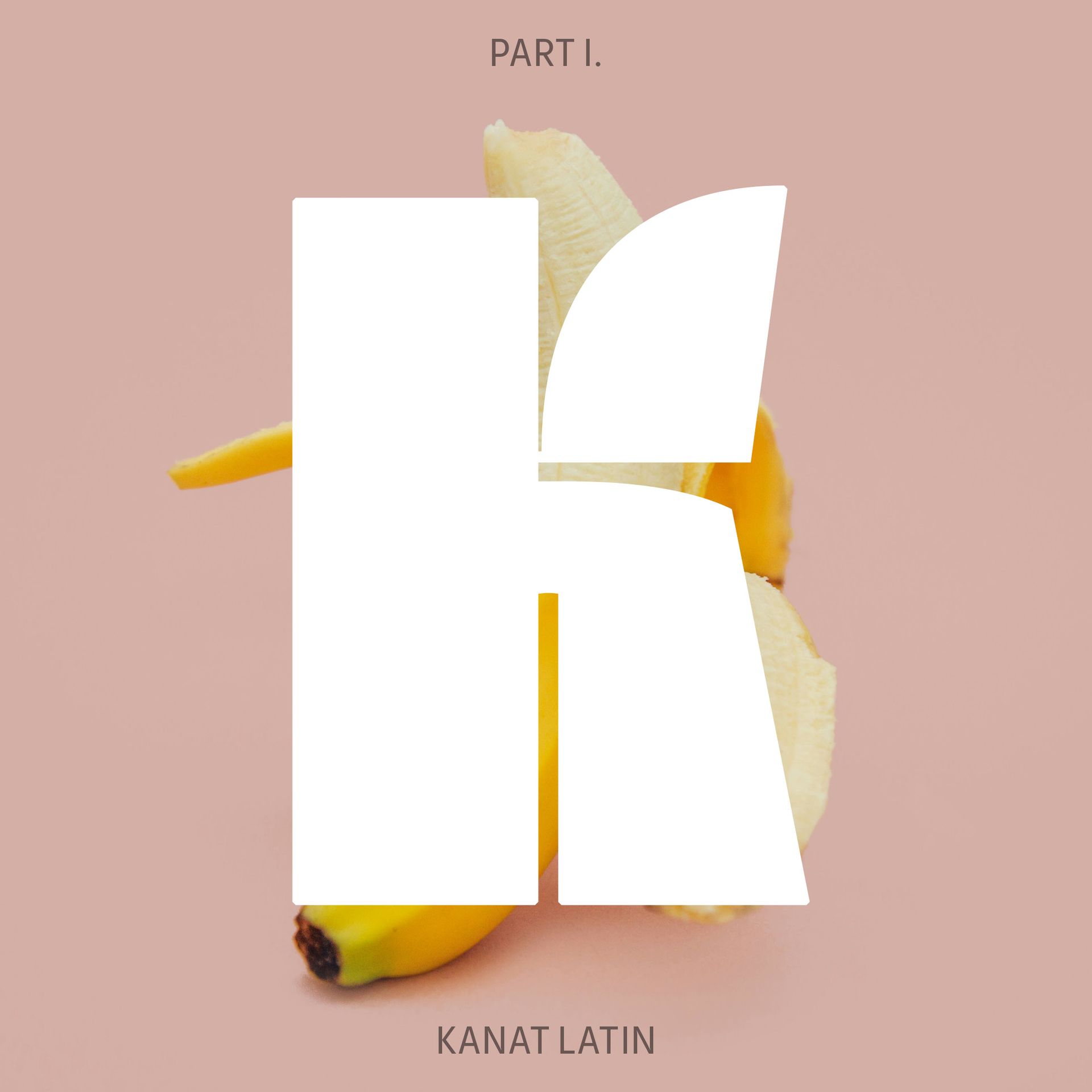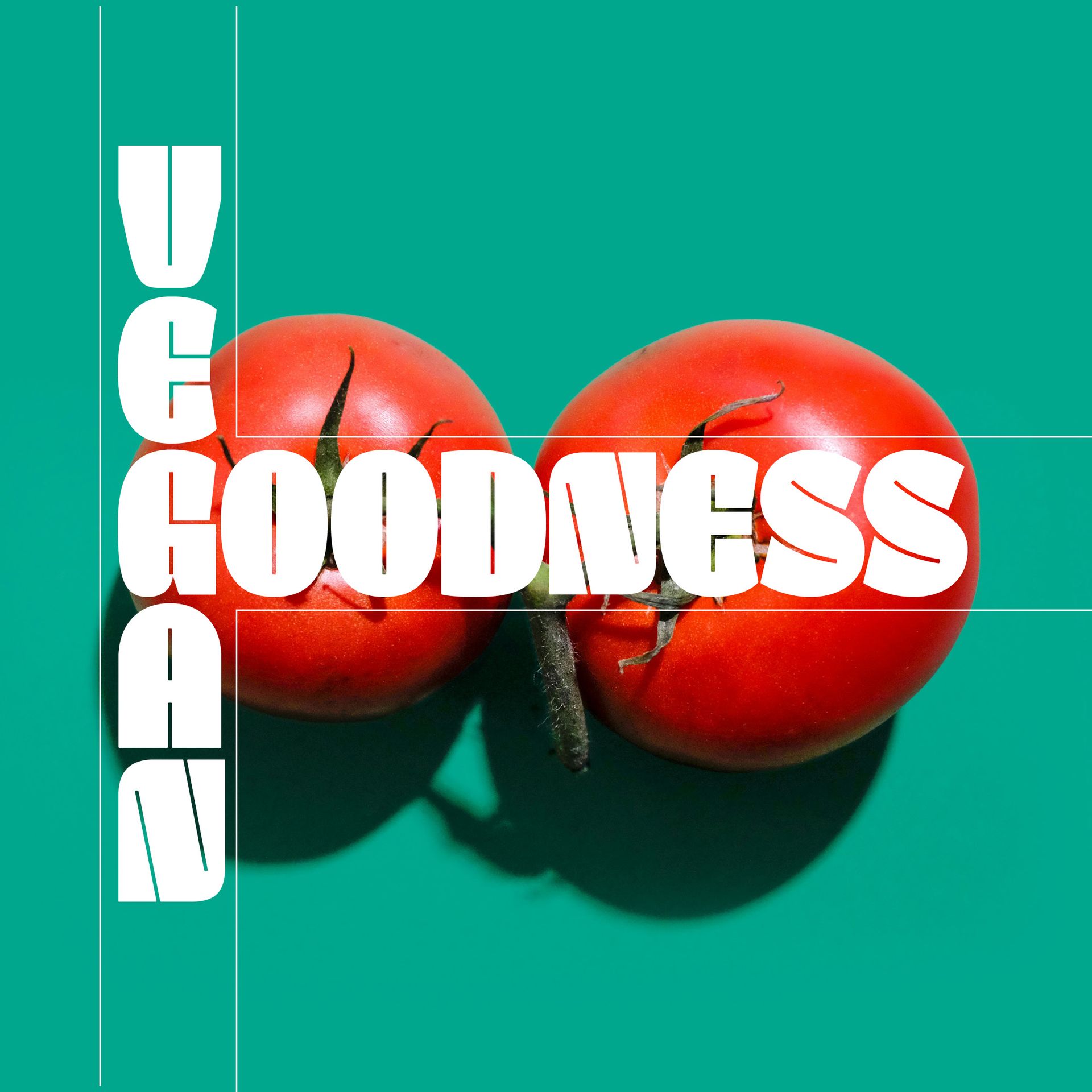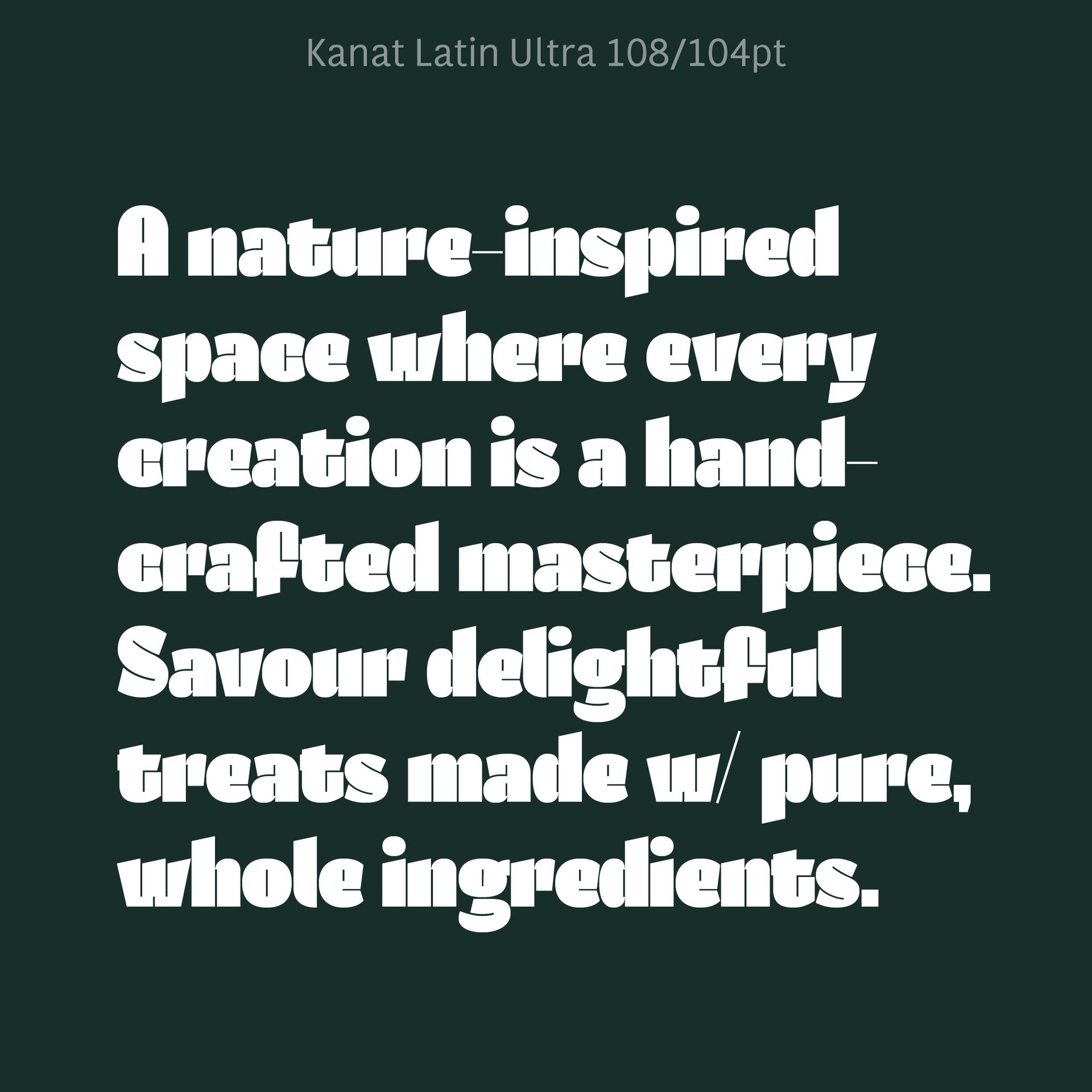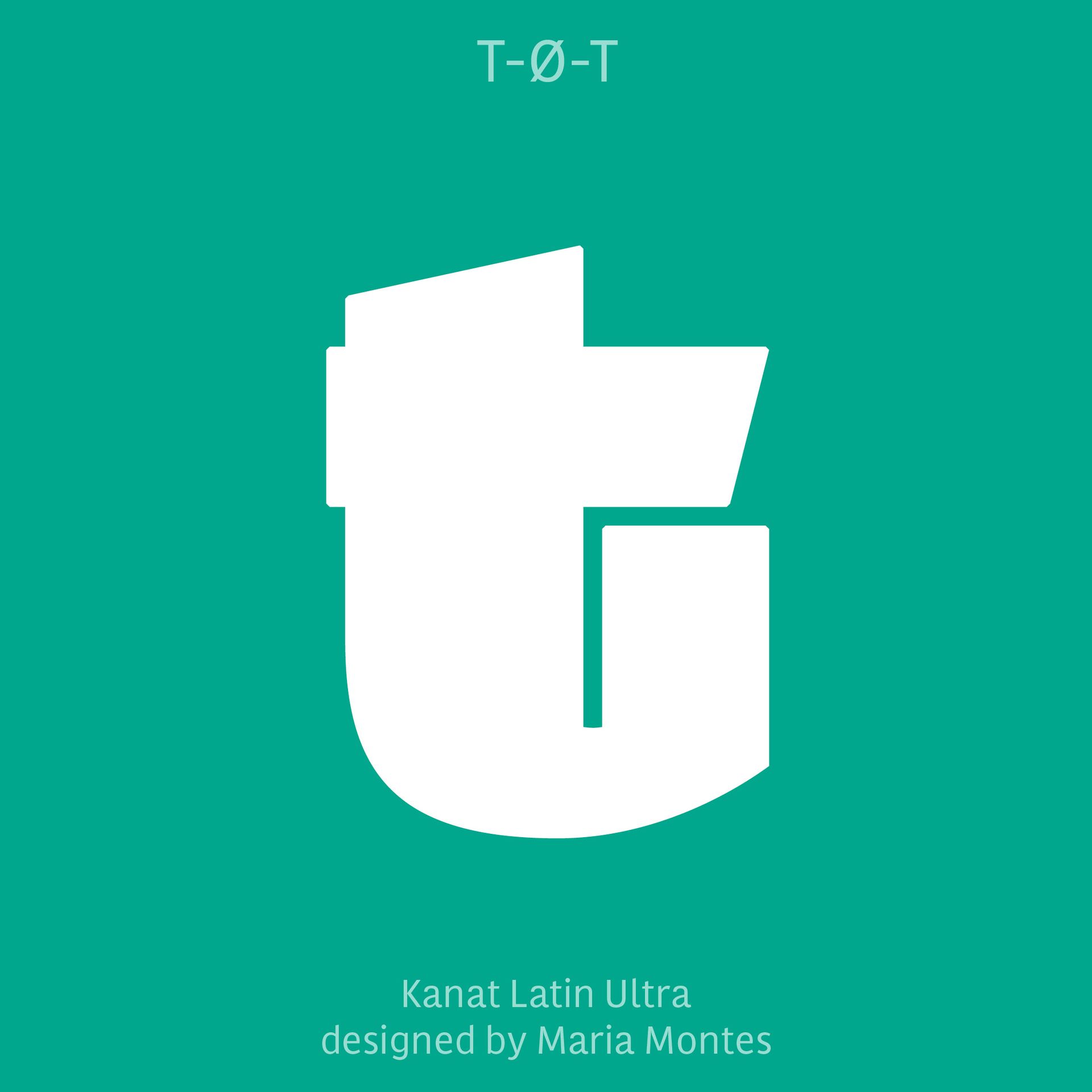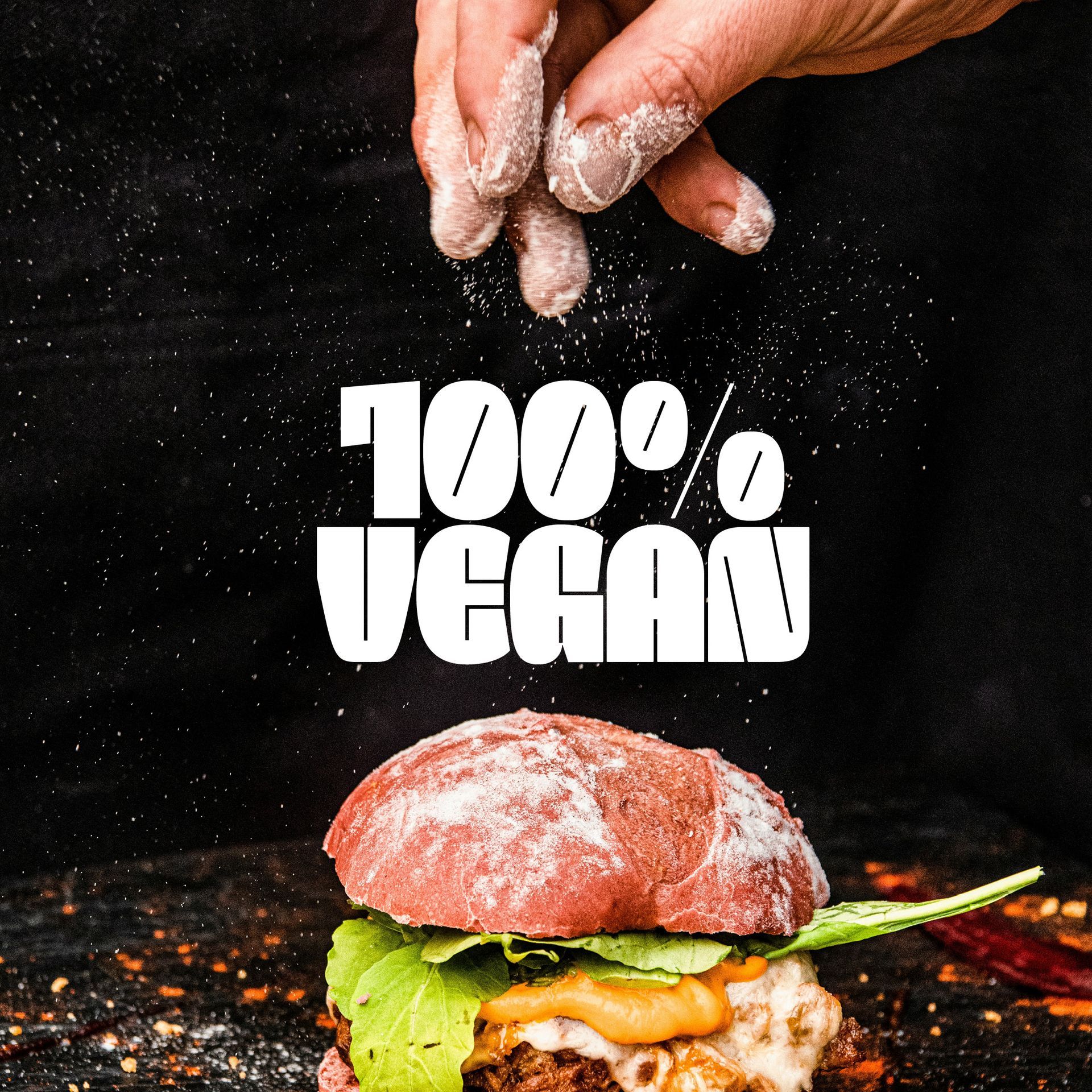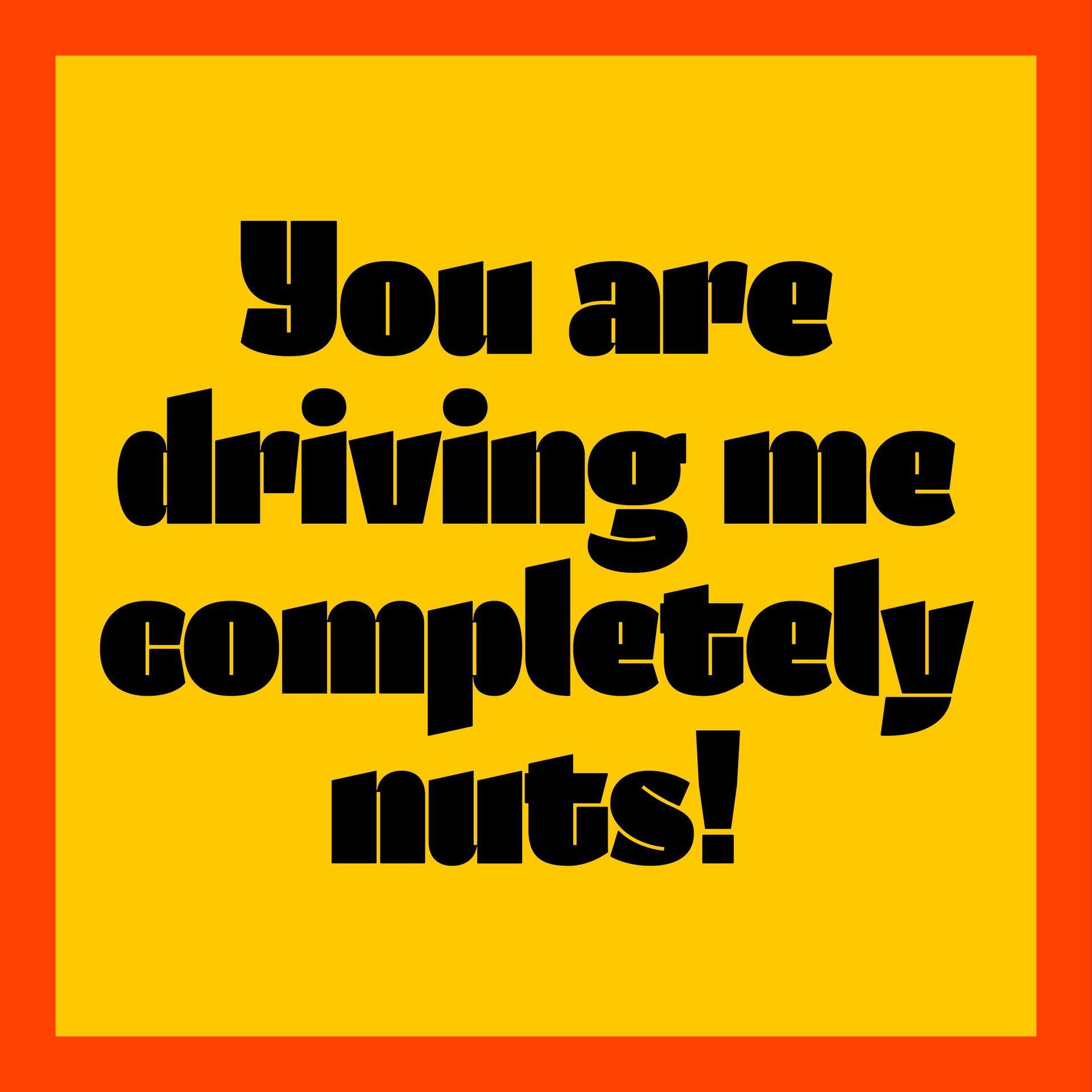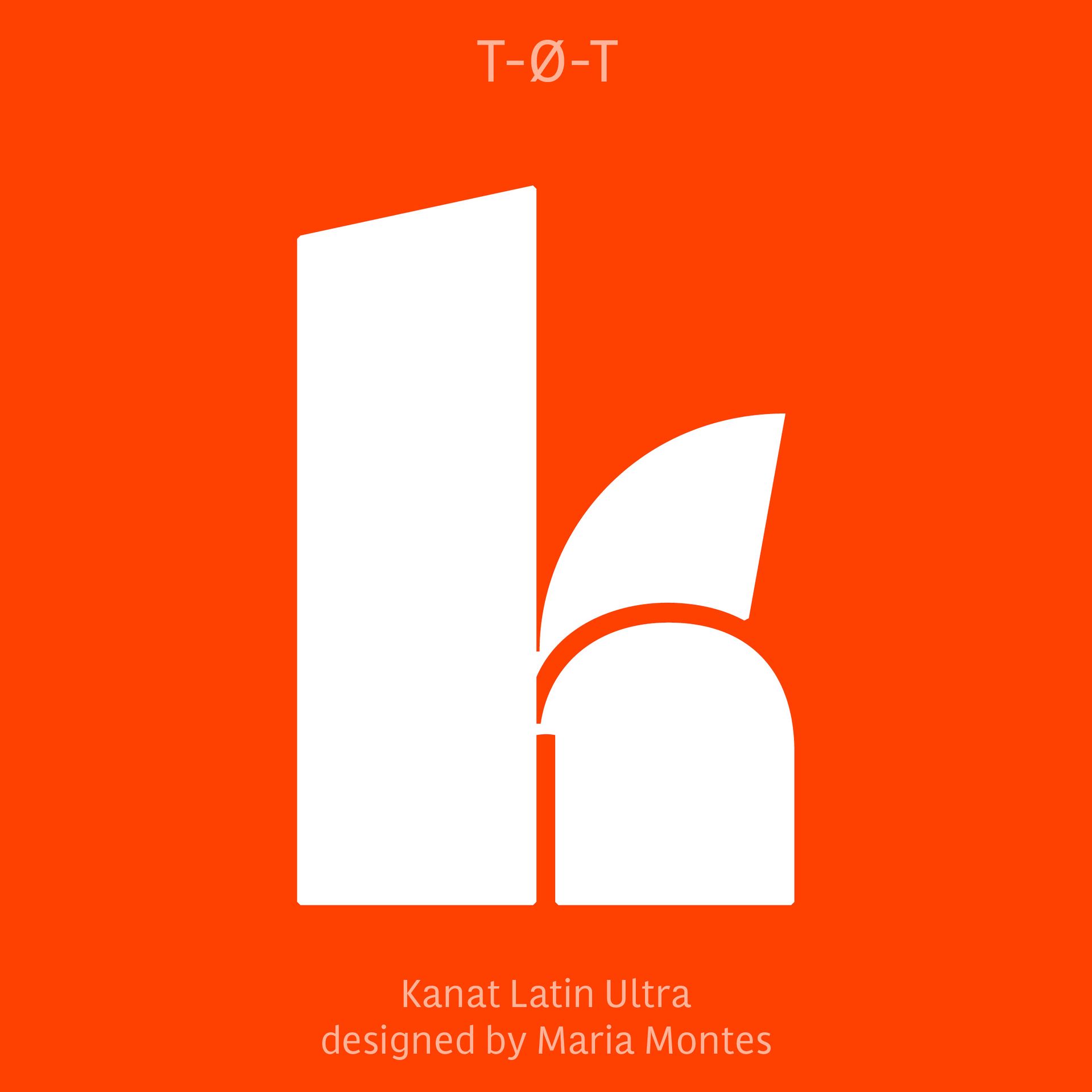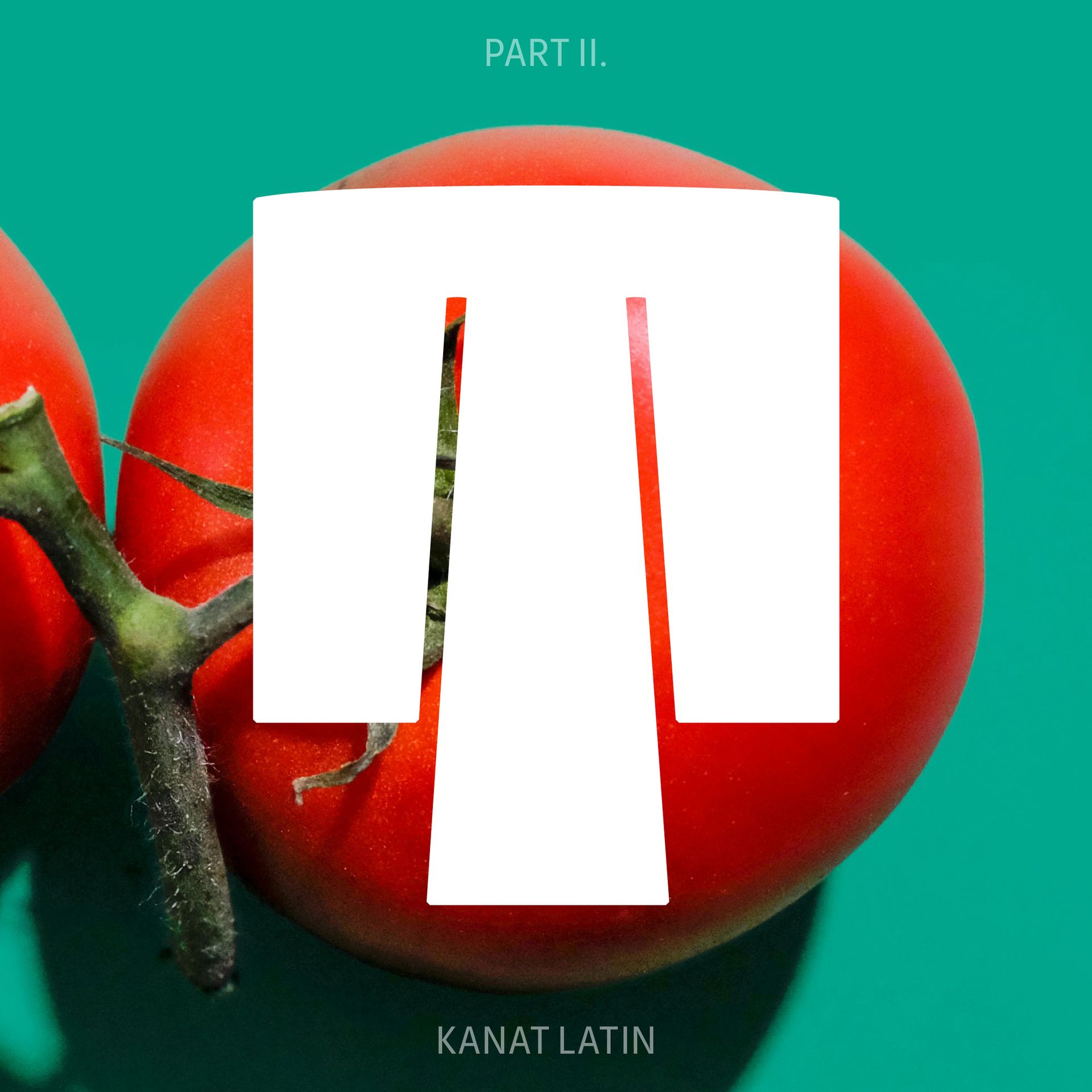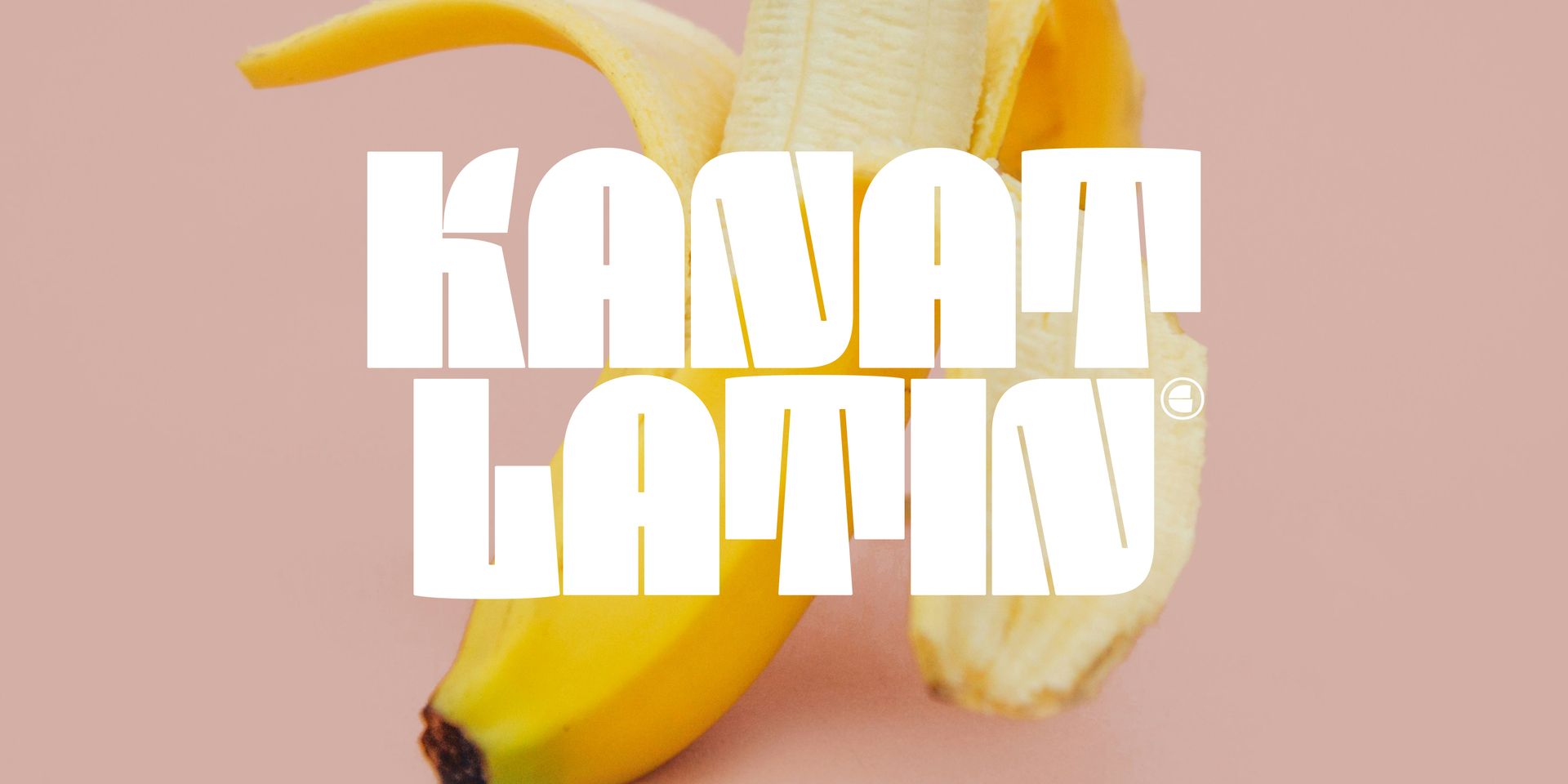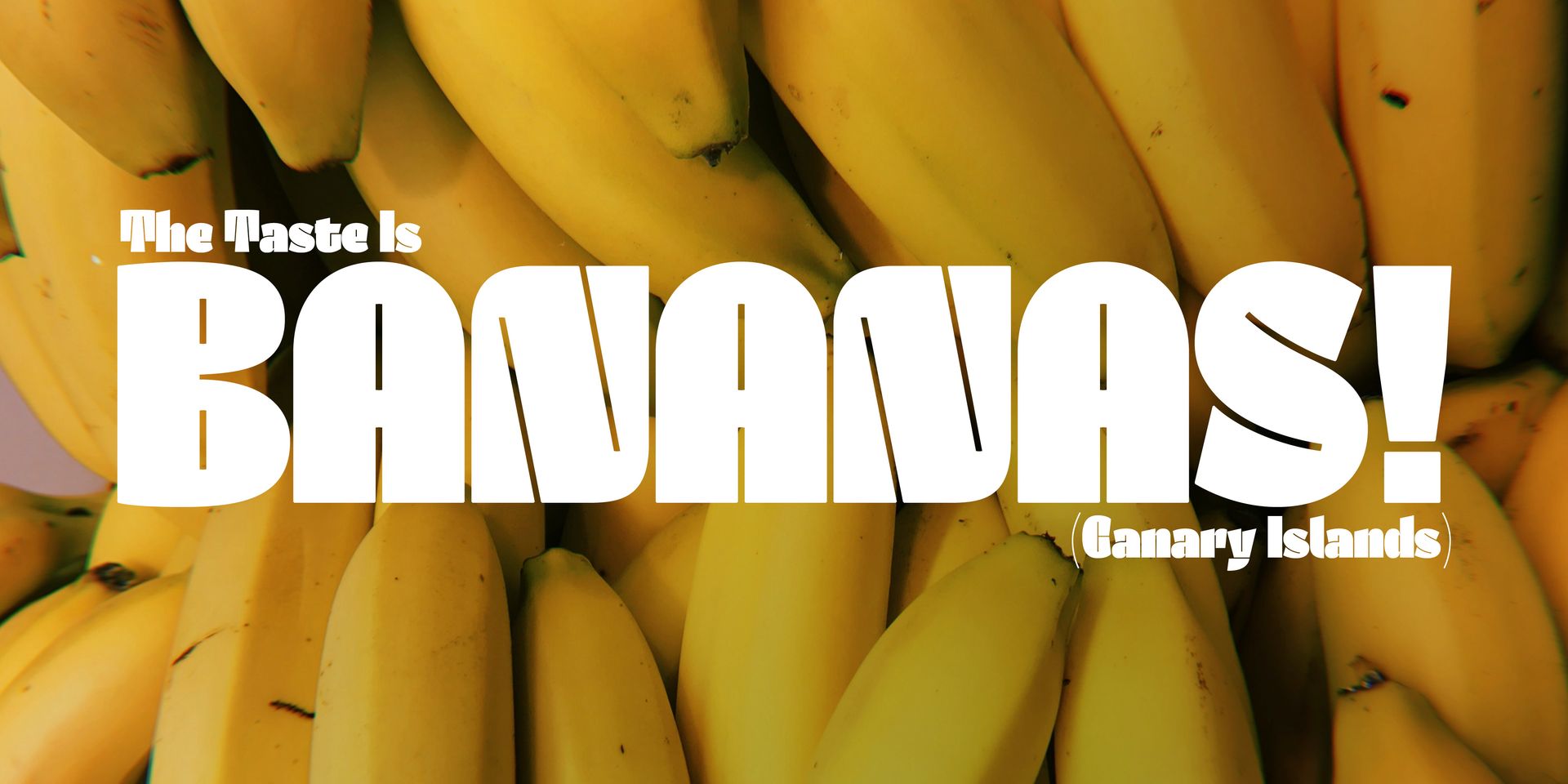
Kanat Latin: New Font Release!
I’m really excited to share with you my second large project of 2025 called Kanat Latin!
Kanat Latin is a contemporary, bold, and playful display font—and I’m super proud of it! Read more below.
Pink cover with a large white K logo over a banana and the text “PART I” and “KANAT LATIN”
Kanat Latin: graphic Expressionism
In 2024, the Arabic type designer Lara Captan challenged me to create a Latin companion for her existing Arabic display font called Kanat — the Turkish word for “wing.” Captan’s beautiful typeface is a detached stencil design, originally created for letterpress, which carries architectural playfulness and delivers a warm kind of boldness to the reader.
Based on the description above— and challenged by the question: How can I create a Latin companion for an Arabic font I cannot read or write? — I spent many hours observing and analysing Kanat Arabic, its personality and DNA, followed by many more hours of consulting with Lara Captan. The result is a Latin interpretation that carries a bold attitude and playful spirit.
Kanat Latin: language support
Kanat Latin supports 269 languages and covers Basic Latin, Latin-1 Supplement, Latin-2 Central European and Latin Plus. Following its Arabic companion, it contains some stencil characters including: g, j, &, $, €, £, ¥, ¢, ƒ, amongst others.
Kanat Latin: FONT SPECIFICATIONS
Kanat Latin is best used at 48pt and above. It’s designed to highlight words with flair, and finds its sweet spot in architectural, food, music, fashion, and packaging contexts.